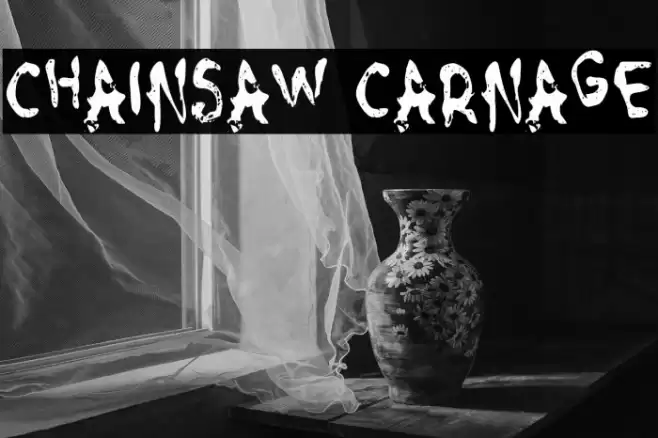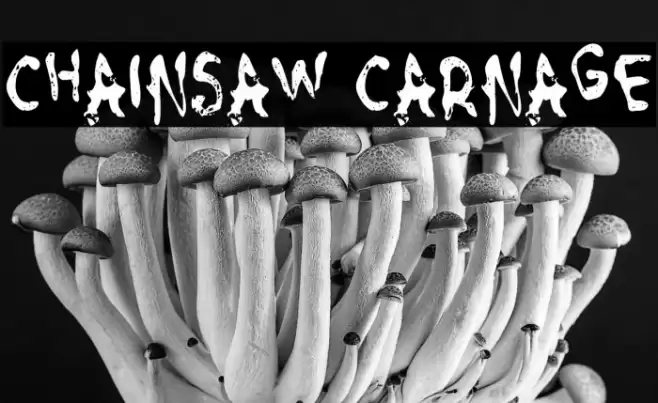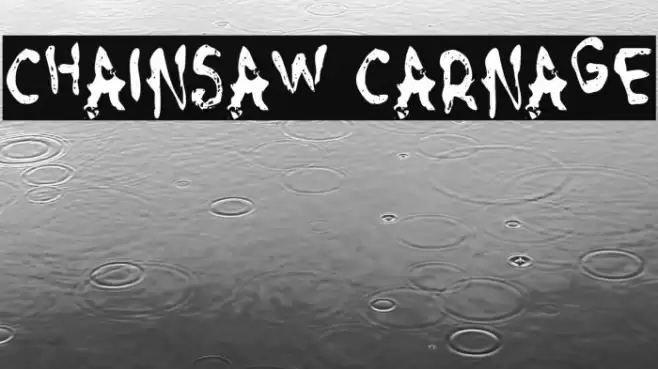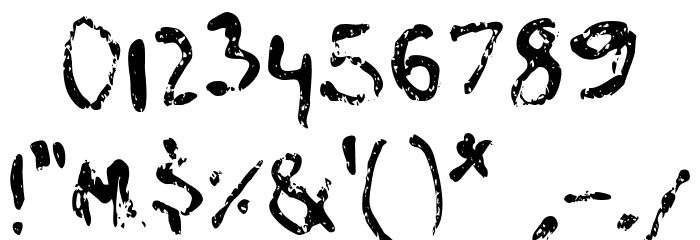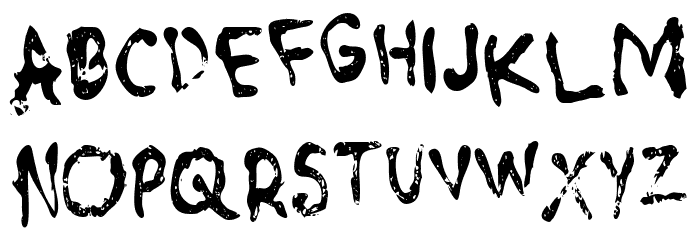
Chainsaw Carnage Font
Chainsaw Carnage Description
This font exhibits a rugged and distressed style, reminiscent of splattered paint or rough textures. The characters are bold and irregular, with uneven edges and a chaotic appearance that gives it a raw, edgy feel. The uppercase and lowercase letters maintain a consistent style, while the numbers and special characters follow the same distressed theme. This font is perfect for projects that require a gritty, intense look, such as horror-themed designs, music album covers, or rebellious branding.
A rugged, distressed font with a chaotic, edgy appearance from Uncategorized fonts.
- Font: Chainsaw Carnage
- Proposed Projects: Ideal for horror-themed designs, music album covers, rebellious branding, and edgy posters.
- Contrast: High
- Overall Style: Decorative
- Use Case: Headlines, Logos